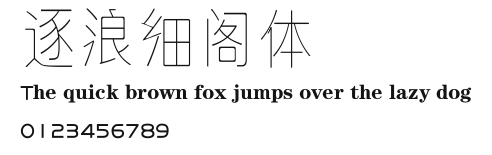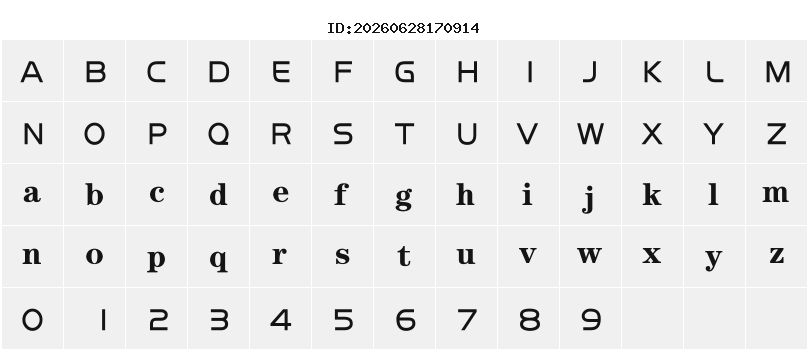
逐浪细阁体 Preview
• Font Name: 逐浪细阁体
• Font Style: 常规
• Font ID: 逐浪细阁体
• Full Font Name: 逐浪细阁体
• Version: Version1.00 20160422
• PostScript Name: ZoomlaXige-A002
• Character Count: 8126
• Designer: hx008Com
• Manufacturer: Shanghai ZoomlaCMS co.,LTD
About 逐浪细阁体.otf
逐浪细阁体.otf is a modern, elegant sans-serif font designed for ultimate readability and visual harmony. Perfect for branding, headlines, web design, and print materials.